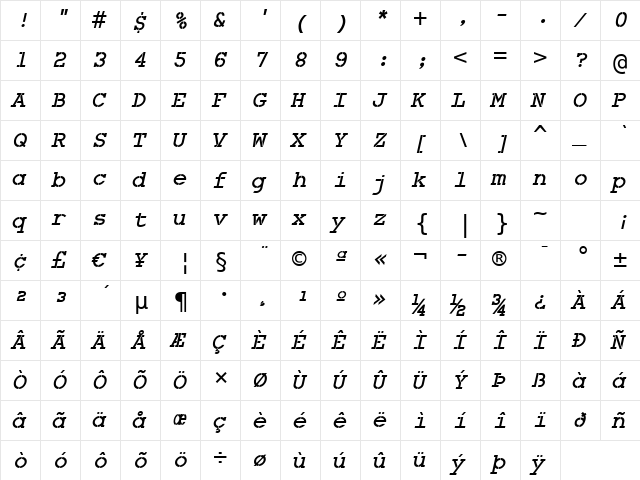
Combat Ready BTN Oblique
Design Context for Combat Ready BTN Typeface
Combat Ready BTN draws on military and industrial lettering traditions, with forms that communicate strength and precision. The slanted form adds forward momentum and visual energy.
Designed for tactical branding, military-inspired apparel, action game UI, and utility-focused signage.
Pro Tip: Use Combat Ready BTN at medium-to-large sizes where its utilitarian structure can be appreciated — the character detail gets lost at small sizes.